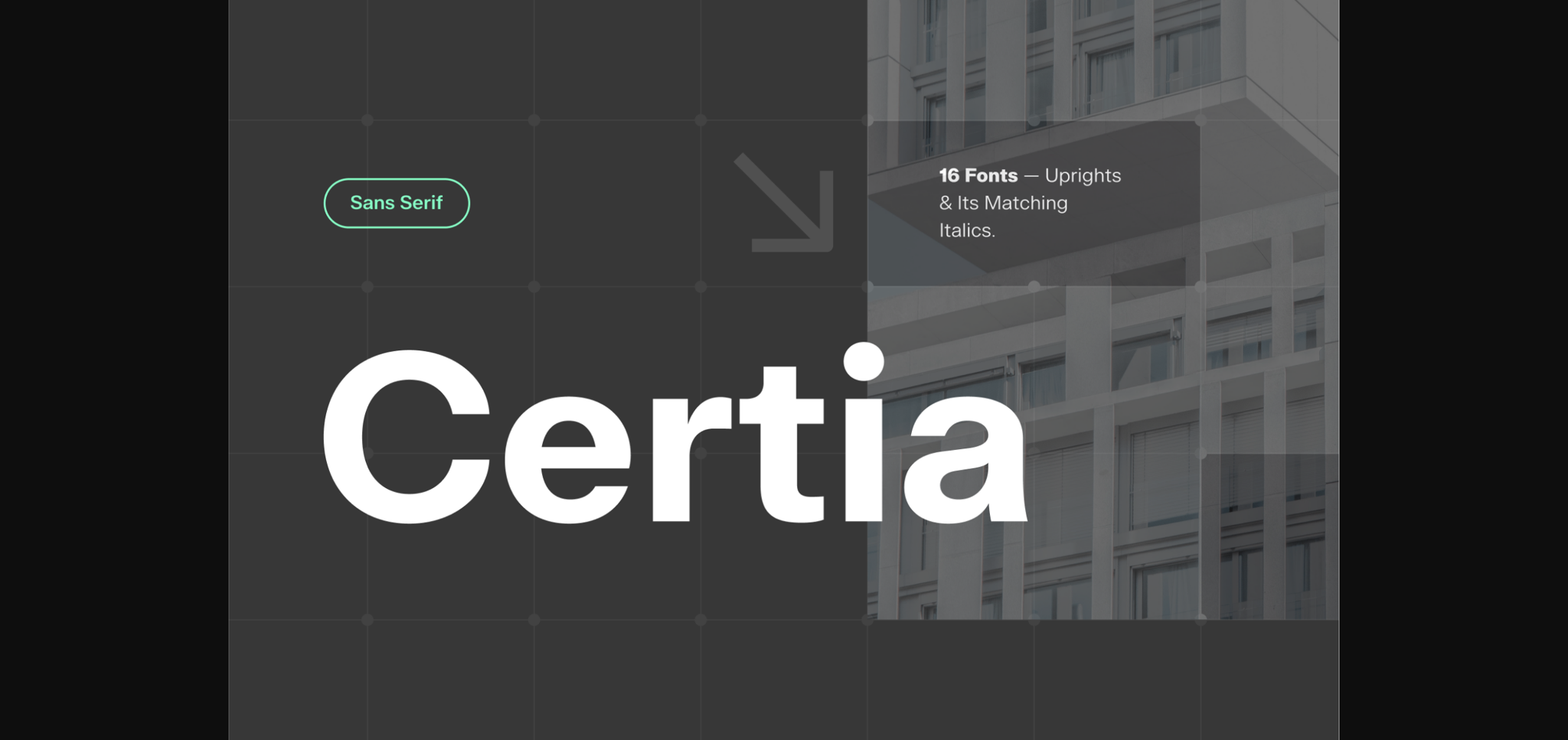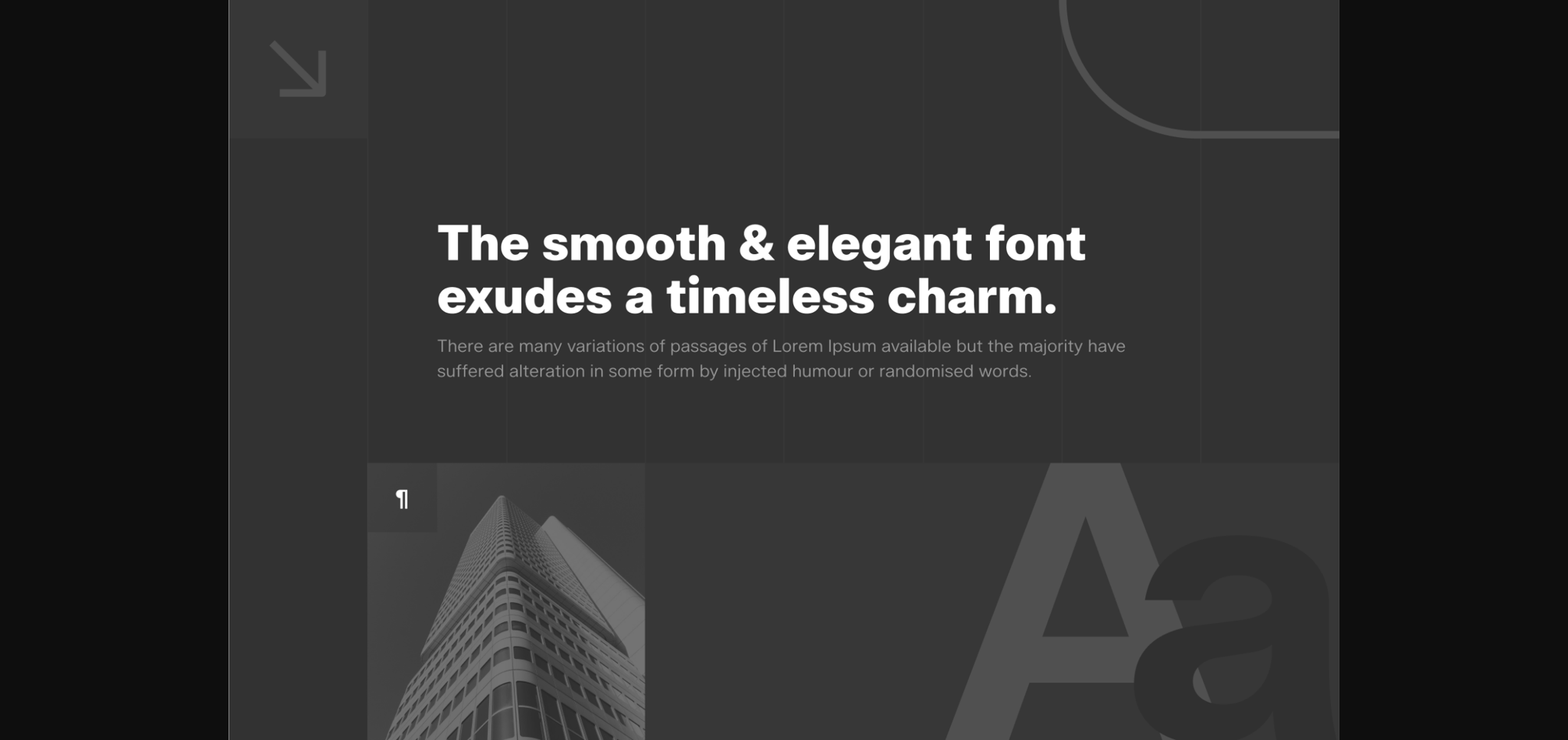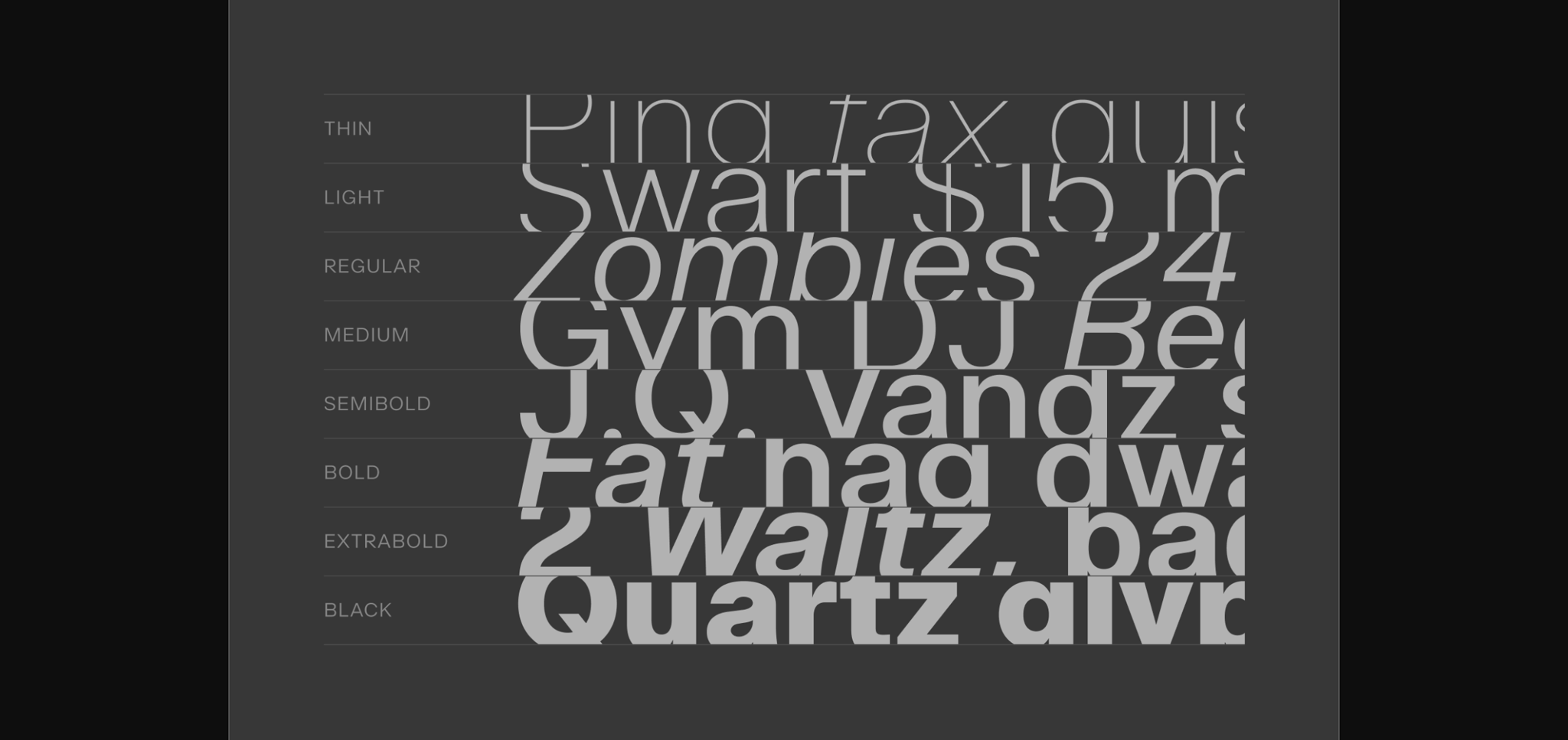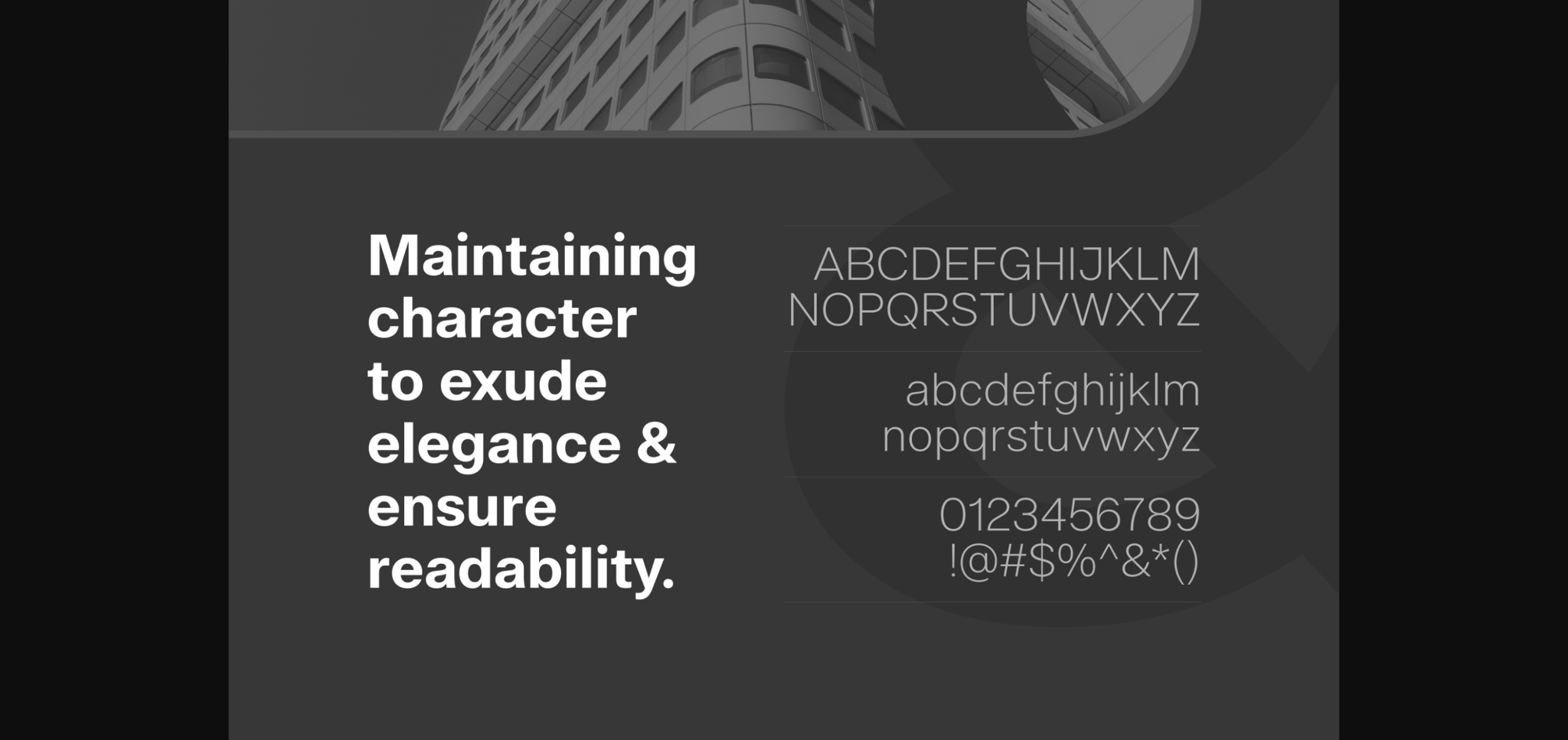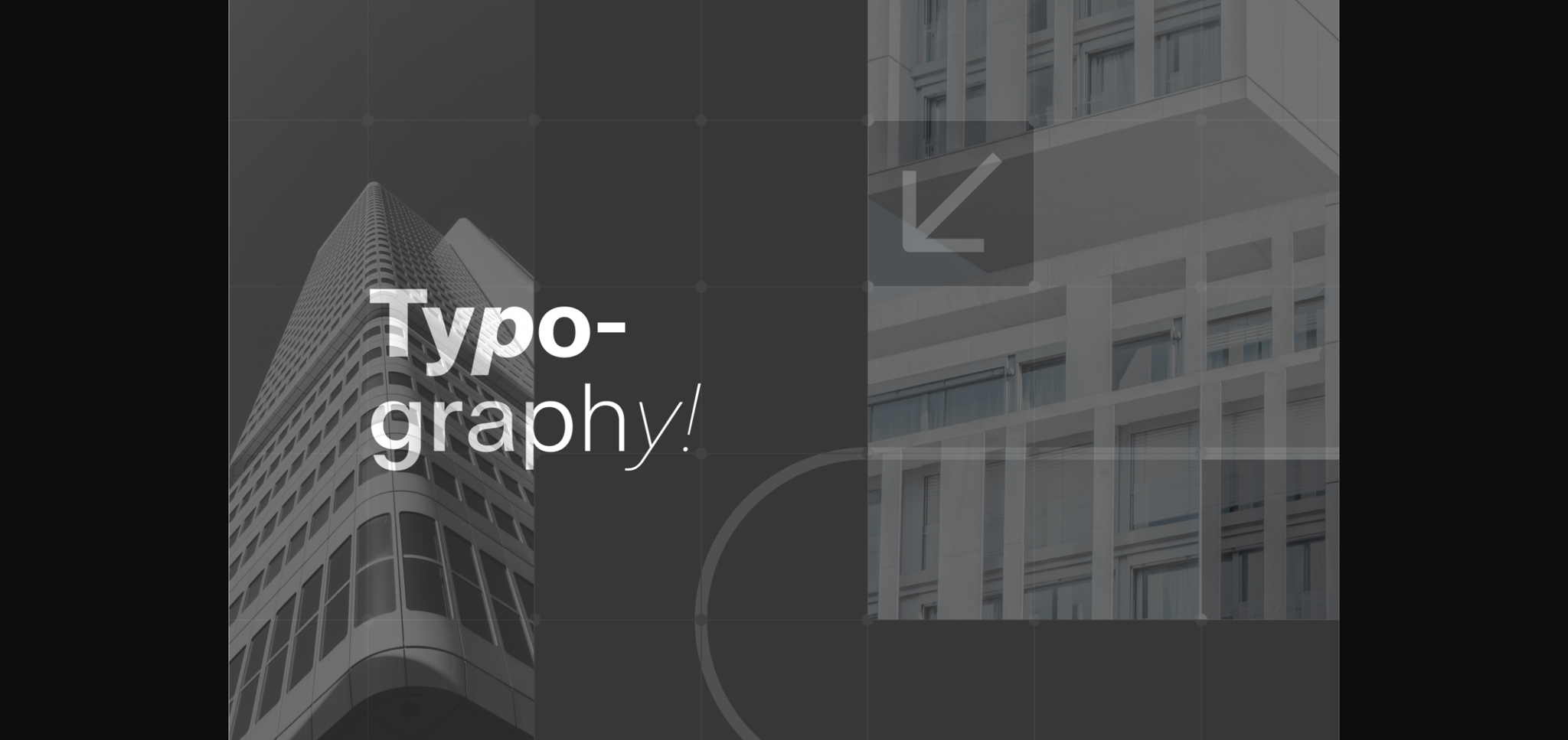
Certia Font
About Certia Font
Certia, a meticulously crafted sans-serif font family, embodies a harmonious blend of elegance and functionality. Consisting of 16 fonts, including a gracefully designed italic variant, this versatile typeface offers an extensive range of language support, catering to diverse communication needs across the globe.
Its appearance ensures optimal readability without diminishing its inherent elegance. Whether used for editorial projects, branding endeavors, or digital interfaces, Certia exudes an aura of sophistication that seamlessly integrates with various design contexts. Its innate ability to maintain consistency in both form and readability makes it a reliable choice for conveying messages with clarity and elegance.
Certia represents not just a font but an embodiment of refined craftsmanship, making it an indispensable asset for designers seeking a timeless and versatile typeface solution.